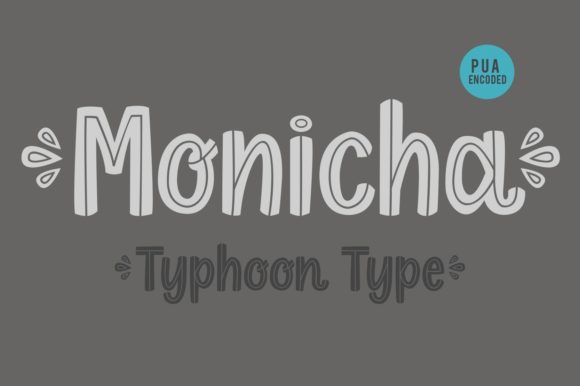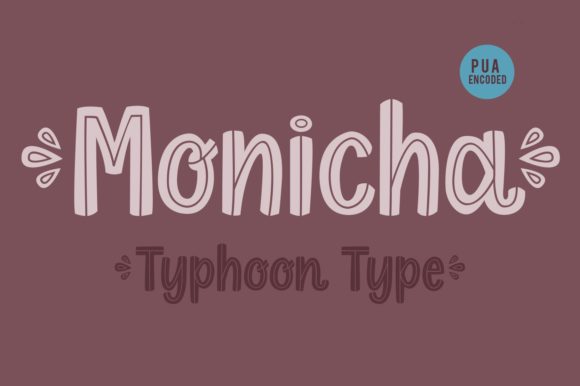
Monicha Font
About Monicha Font
Monicha is a fun and neat lettered handwritten font. Creative and retro, this font will make each of your designs stand out!